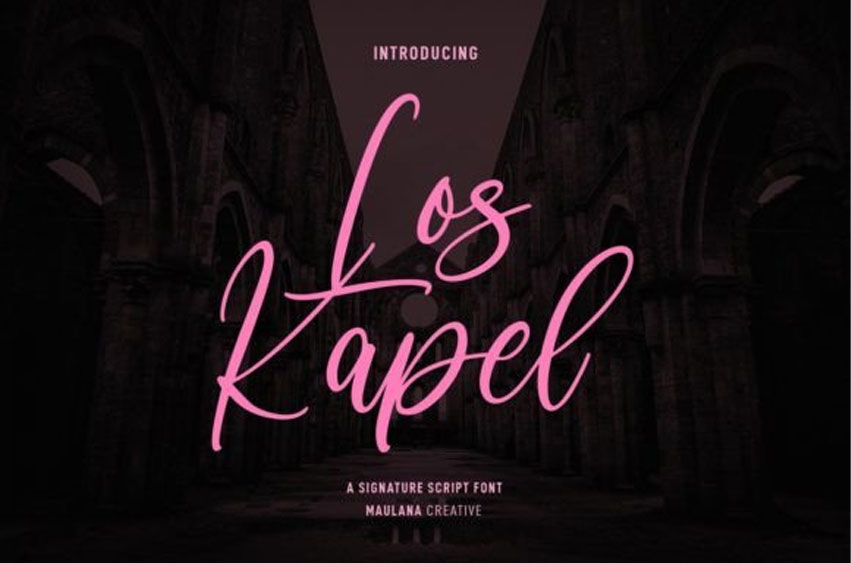
Los Kapel Font is a casual and relaxed signature script font.
With its medium contrast stroke and a fun character is great for logo design, social media, movie or book titles, posters, labels, and more!